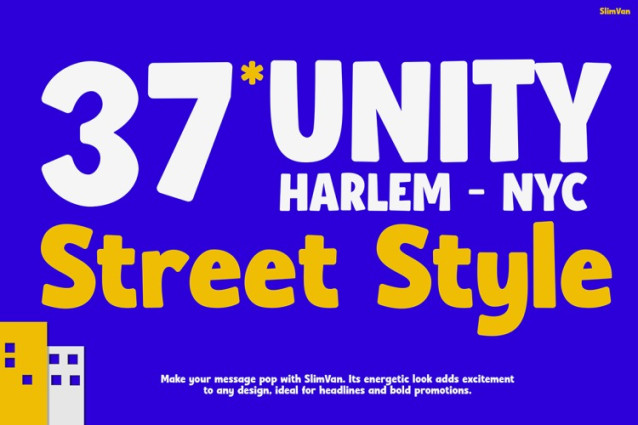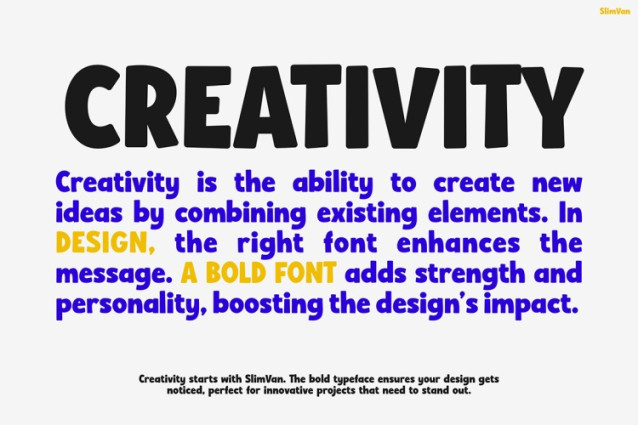
Slim Van Font
Slim Van Font is the perfect blend of bold character and playful charm. Designed to stand out, this font brings a sense of fun and energy to any design it touches. Not only are the chunky, soft-edged letterforms visually striking, but they’re also highly readable. Inspired by vintage animations and vibrant street style, SlimVan’s cartoonish, comic-style aesthetics add a sense of personality to every project. Whether you’re working on bright headlines, animated visuals, or kids’ product branding, this font demands attention in the most cheerful way possible.
SlimVan doesn’t just look fun—it feels fun. Thanks to its exaggerated curves, thick strokes, and retro flair, it instantly injects personality into your design. As a result, your message becomes more engaging and memorable. Its friendly shapes create a sense of approachability, while still being expressive enough to convey excitement and creativity. Therefore, it’s an excellent tool for adding emotion and motion to both digital and print media. From playful product packaging to bold movie titles, SlimVan helps tell stories that are full of life.